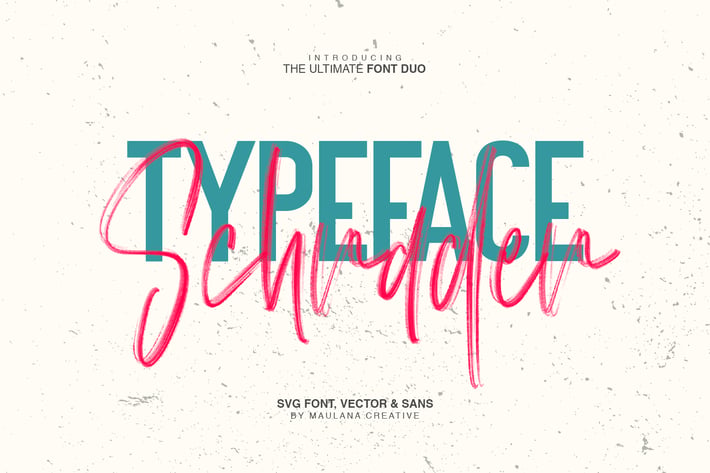
Schrader SVG Brush Font
Give your designs an authentic brush handcrafted feel. "Schrader" is perfectly suited to signature, stationery, logo, typography quotes, magazine or book cover, website header, clothing, branding, packaging design and more.